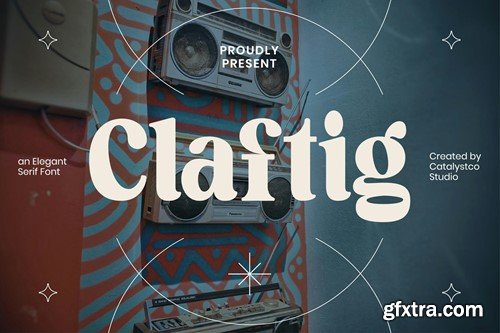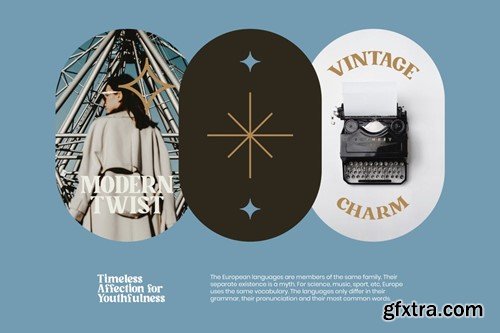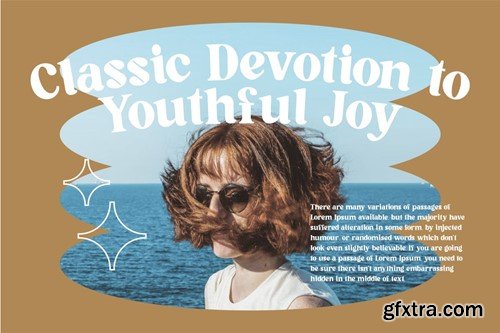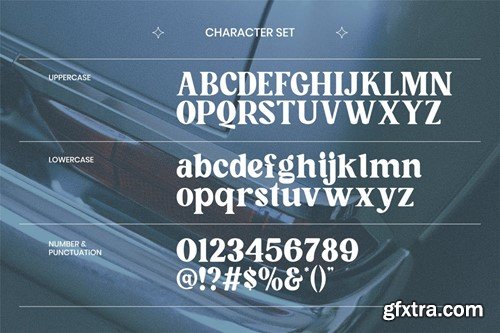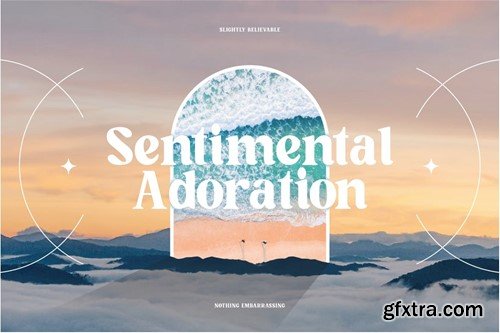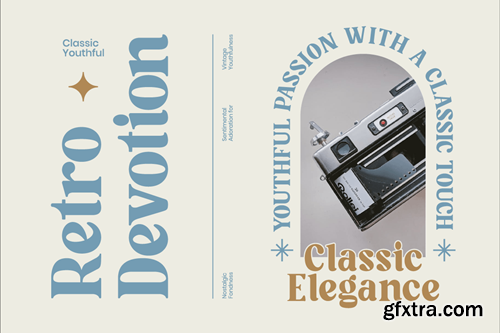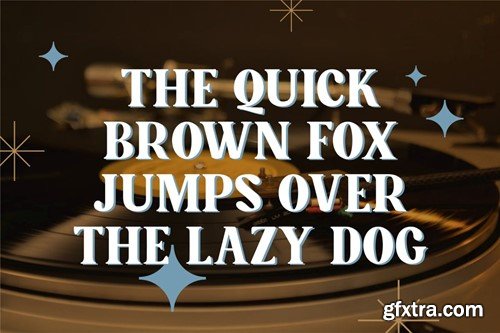
克拉夫蒂优雅衬线字体 4M8WFUN
Claftig Elegant Serif Font 4M8WFUN
Claftig Elegant Serif Font
Claftig Elegant Serif Font typeface excellent used for the manufacture quote text, logotype, header magazine, and many more.
Main Features
• Ligatures & Alternate